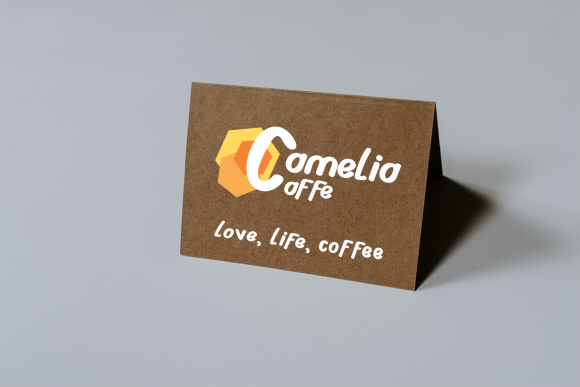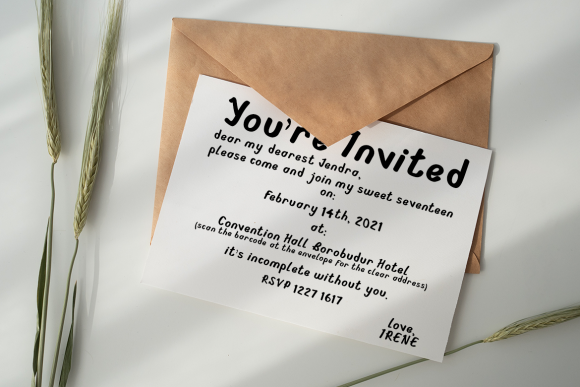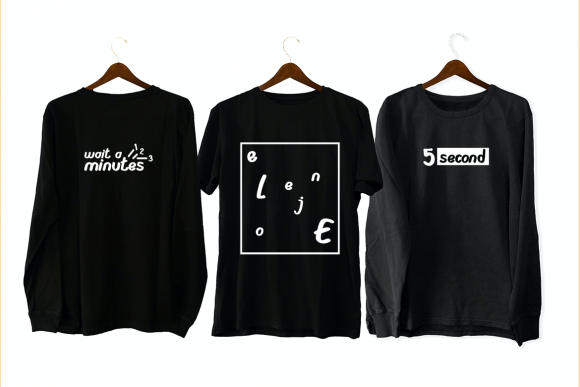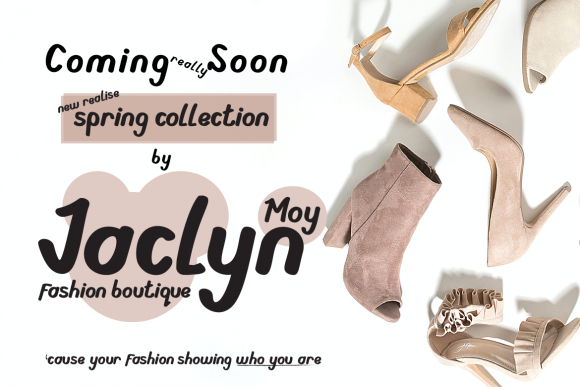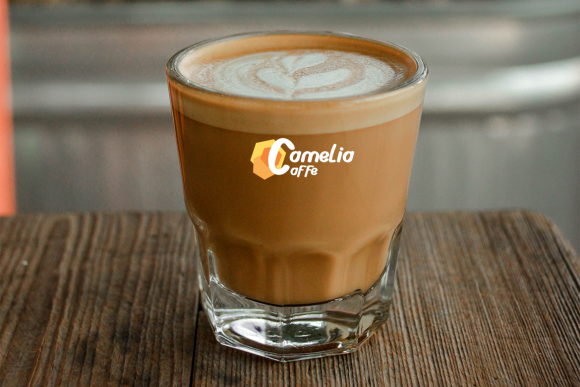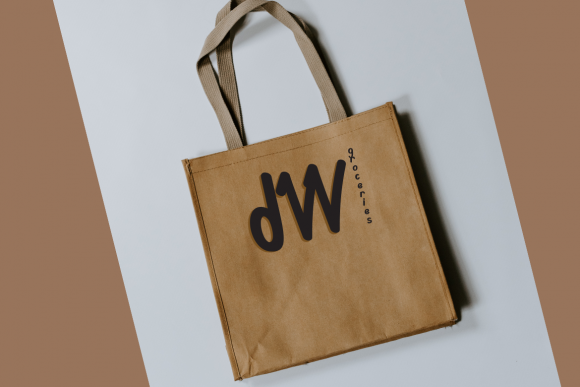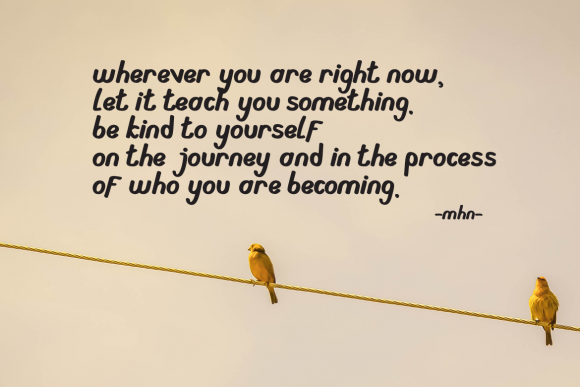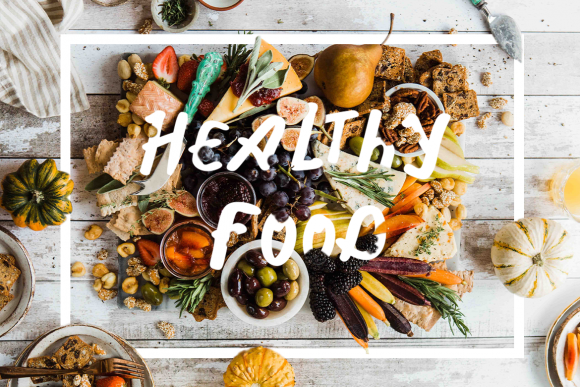
Personal Use Free Deling 0 111 FacebookTwitterPinterestWhatsApp 1 of 10 About Deling Font Deling is a natural, simple and smooth handwritten font. It is the best choice for creating eye catching logos, branding and quotes. It will add a joyful and romantic touch to each of your projects! DOWNLOAD NOW